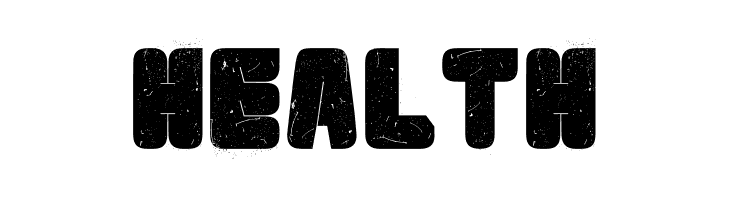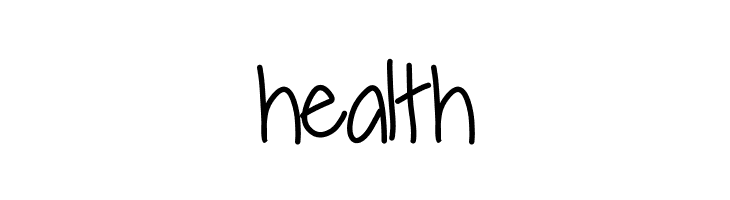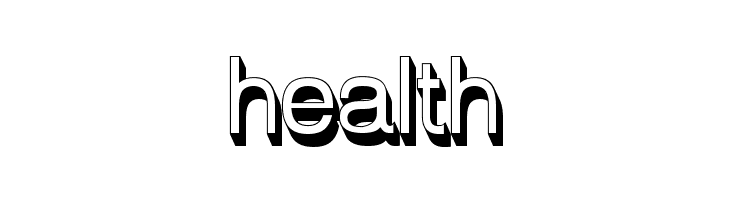
A playful, casual handwritten font with smooth, flowing lines.
A bold, 3D sans-serif font with a shadow effect for modern, eye-catching designs.
A bold, textured, and decorative font with a vintage, rugged style.
A bold, flowing script font with elegant, connected letterforms.
A graceful, cursive script font with elegant, flowing strokes.
A bold, cursive font with elegant, interconnected letters and ornate uppercase designs.
A graceful script font with flowing, interconnected letters and ornate uppercase characters.
A bold, distressed font with a vintage, handcrafted appearance.